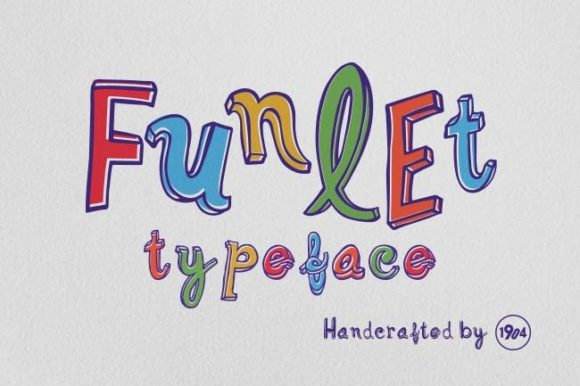
Funlet Font
**Funlet Font: Unlocking Imagination and Sparking Joy in Every Digital Adventure**
For children's apps, fonts aren't just characters on a screen – they're gateways to worlds of wonder, imagination, and playful learning. Introducing Funlet Font, a captivating display typeface designed to ignite creativity and inspire young minds.
**A World of Possibilities at Your Fingertips**
Funlet Font is not just a font; it's a toolbox for your imagination. With its playful curves and whimsical strokes, it instantly transforms any design into an interactive playground. Whether you're crafting enchanting stories, creating engaging games, or designing educational materials, Funlet Font seamlessly adapts, adding a touch of magic to every digital encounter.
**Crafted with Care, Inspired by Joy**
Created by the renowned 1904 Studio, Funlet Font embodies meticulous craftsmanship and an unwavering passion for inspiring young hearts. Its unique design, inspired by the boundless imagination of children, captures the essence of wonder and playfulness. Each character is a stroke of genius, carefully drawn to ignite creativity and make every digital interaction an unforgettable experience.
**The Perfect Font for Children's Apps**
Funlet Font possesses an innate ability to connect with young users. Its friendly, approachable style creates an instant bond, inviting children to engage with the content. Whether they're reading interactive stories, playing educational games, or exploring creative apps, Funlet Font becomes an invisible companion, guiding them through digital adventures and fostering a lifelong love for learning.
**A Font that Grows with Imagination**
Funlet Font is not just a font; it's a catalyst for creativity. Its timeless design ensures it will remain a favorite choice for children's apps for years to come. As children grow and their imaginations soar, Funlet Font will gracefully adapt, providing a consistent and engaging experience that fosters their development and empowers their dreams.
**Unlock the Power of Imagination Today**